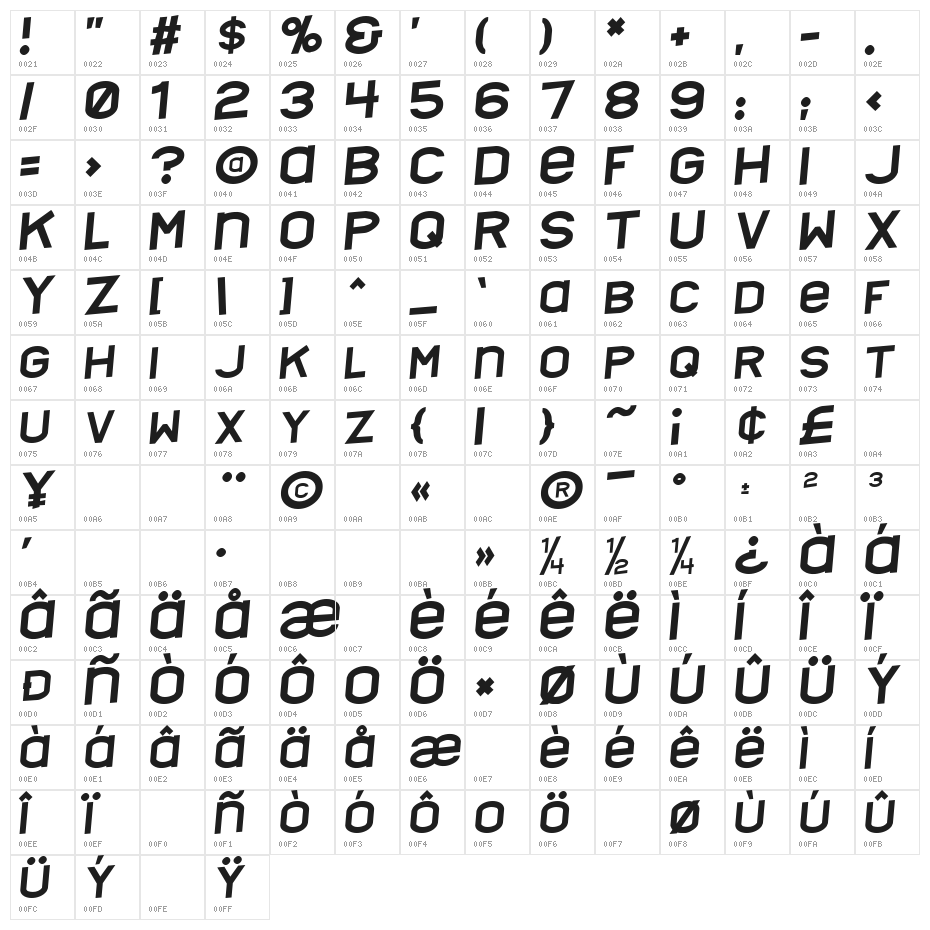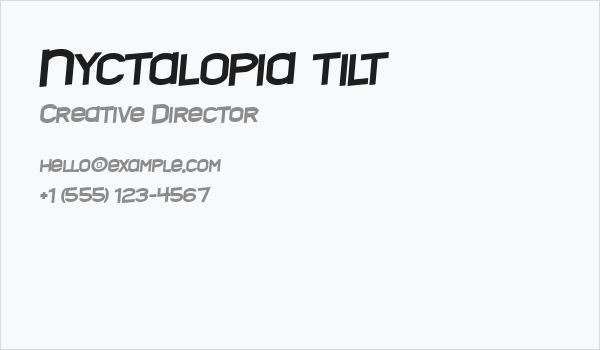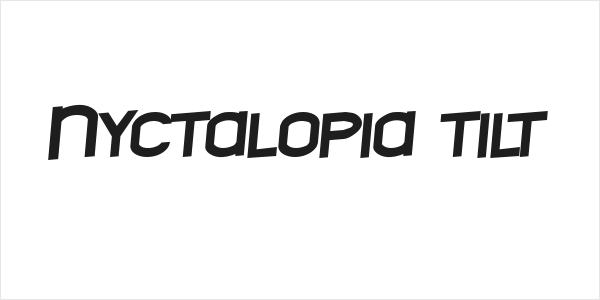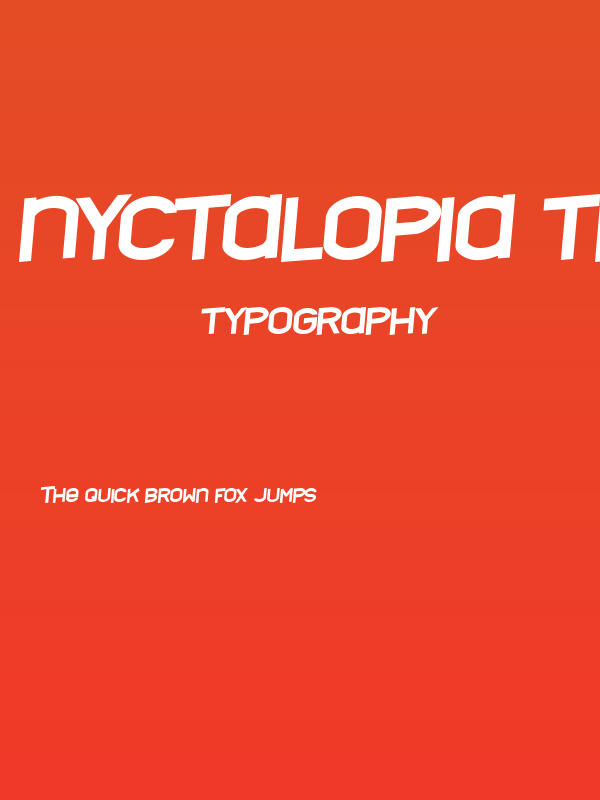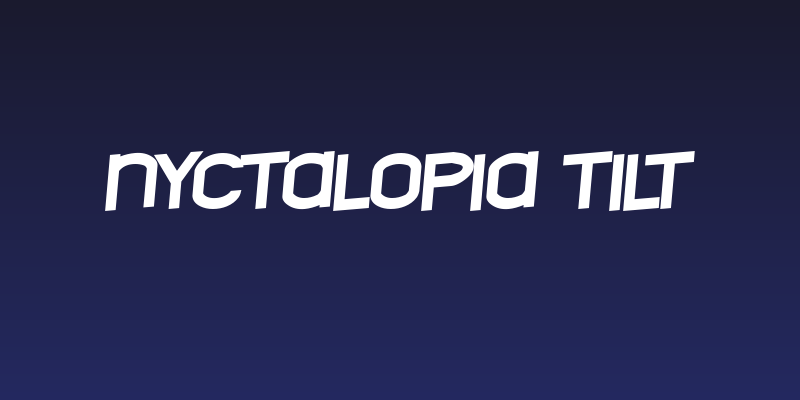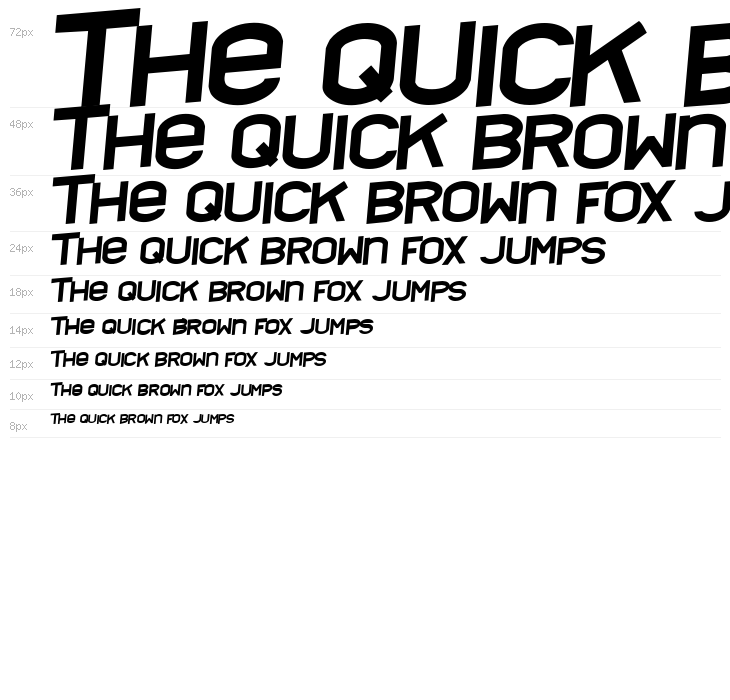
Nyctalopia tilt Font
Nyctalopia tilt Description
This font features a bold, italicized style with a modern and dynamic appearance. The characters are slightly slanted, giving a sense of motion and energy. The strokes are thick and consistent, providing a strong visual impact. The uppercase and lowercase letters maintain a uniform width, contributing to a cohesive look. The numbers and special characters are designed to match the overall style, ensuring versatility across different uses. The font's boldness and slant make it ideal for attention-grabbing designs.
Proposed ProjectsIdeal for sports branding, dynamic posters, modern advertising, and eye-catching headlines.